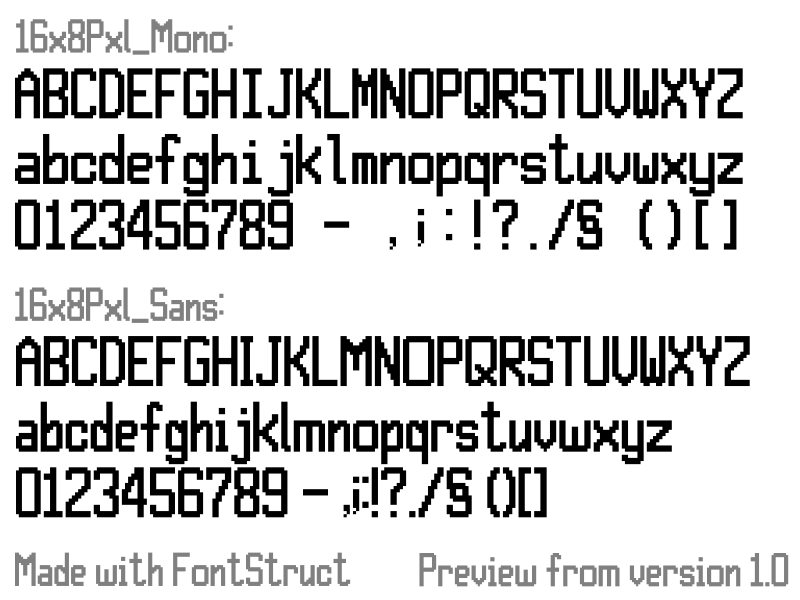
Font name: | 16x8Pxl |
Author: | Corne2Plum3 |
Note by Corne2Plum3 | |
My 2nd font ! A pixel font (again) made with FontStruct (https://fontstruct.com/fontstructions/show/1676998) There's a monospace and no monospace version, and more 330 glyphs, including: * Basic Latin * Greek This font is licensed under the SIL Open Font License, Version 1.1. https://scripts.sil.org/OFL Github repo: https://github.com/Corne2Plum3/Pixel12x10 **Update from 2025/01/03:** Added Github repo, license, and preview picture. |